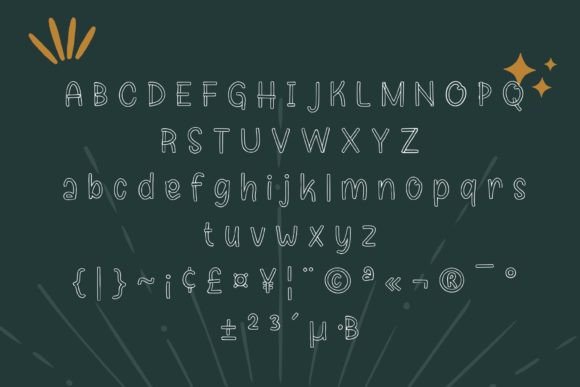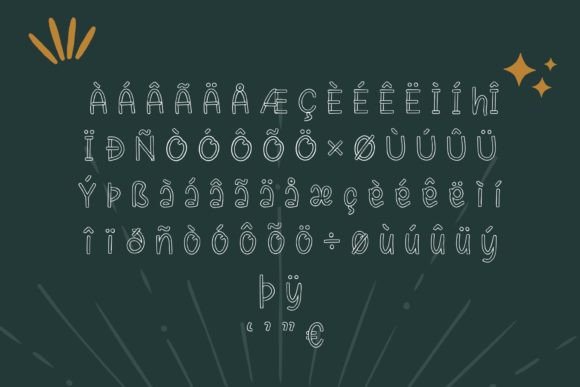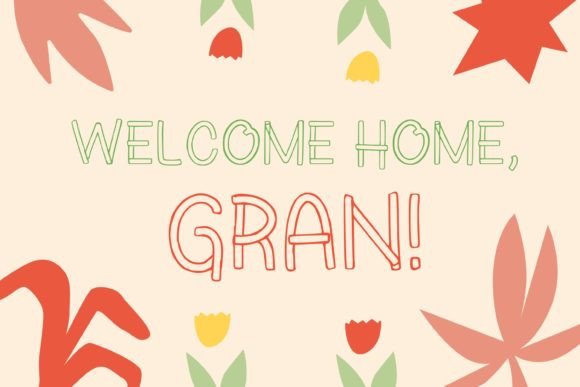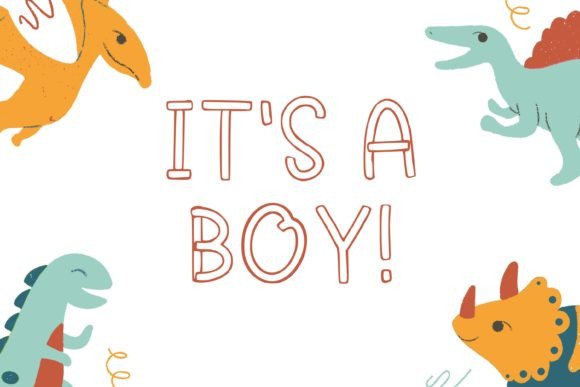
Introduction to Holypids Font
Holypids is a fun, bubbly, outline sans-serif font that is perfect for fun logos, greeting cards, t-shirt designs, stickers, social media, and any craft or project.
Key Features of Holypids Font